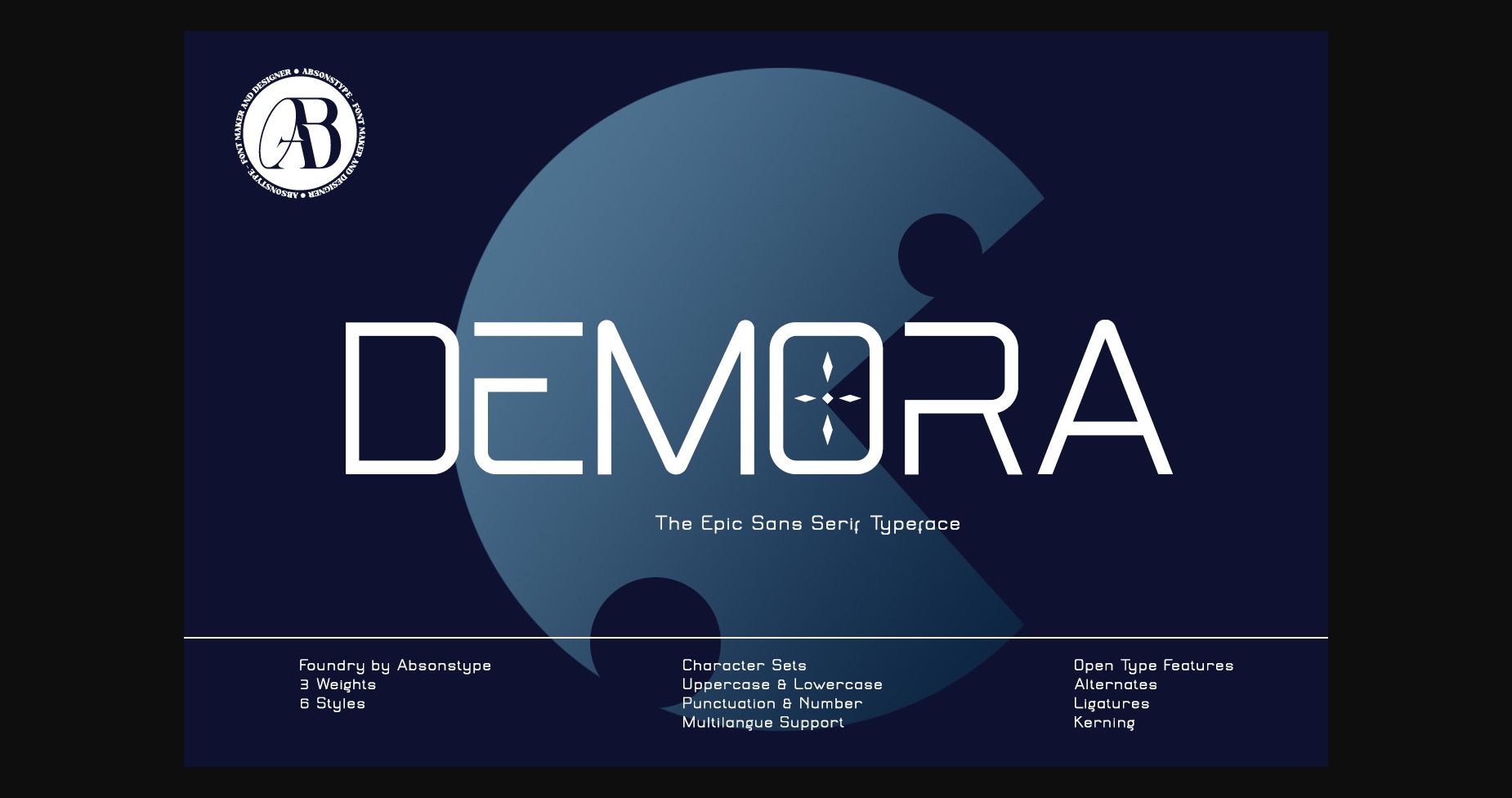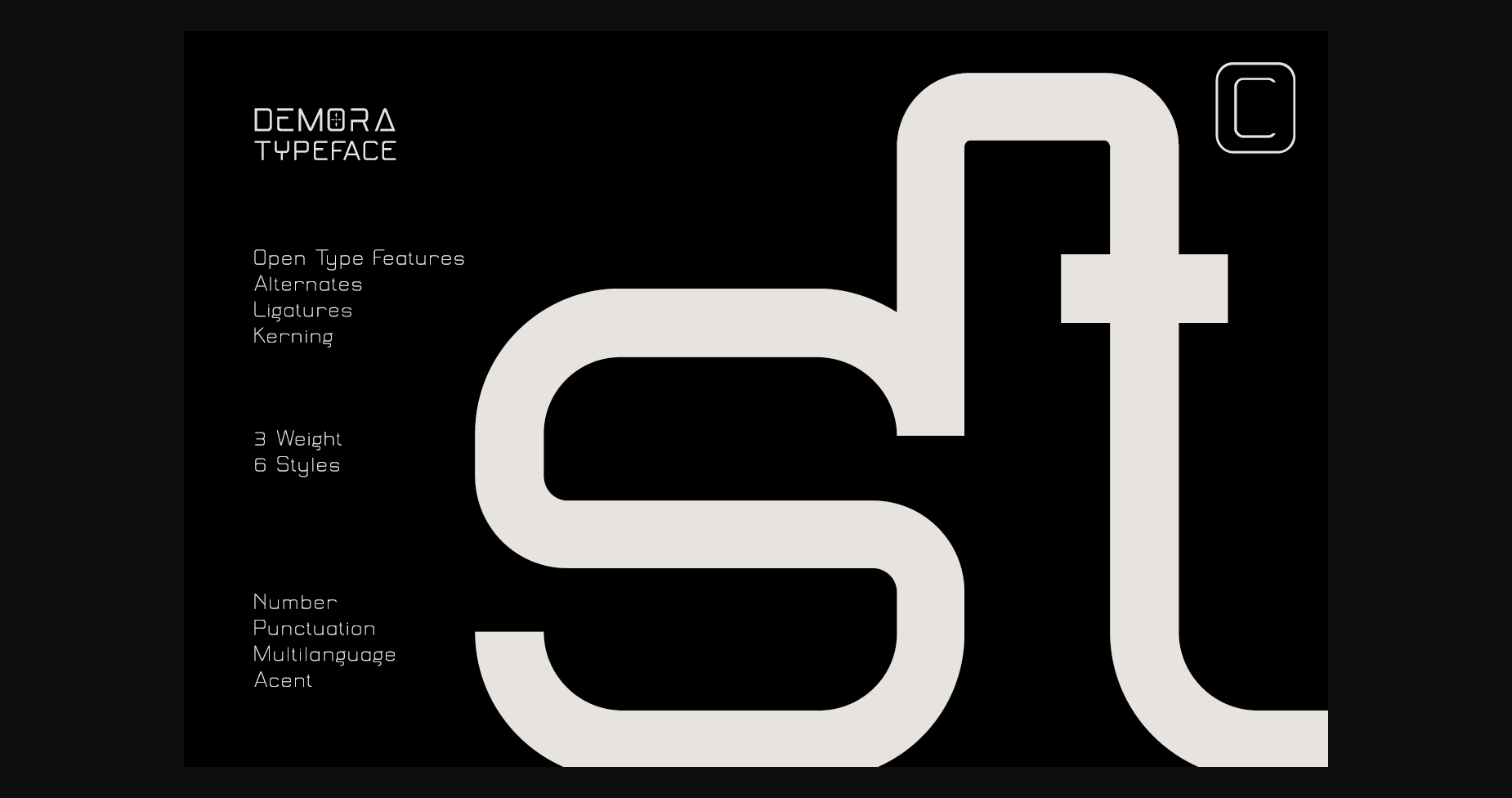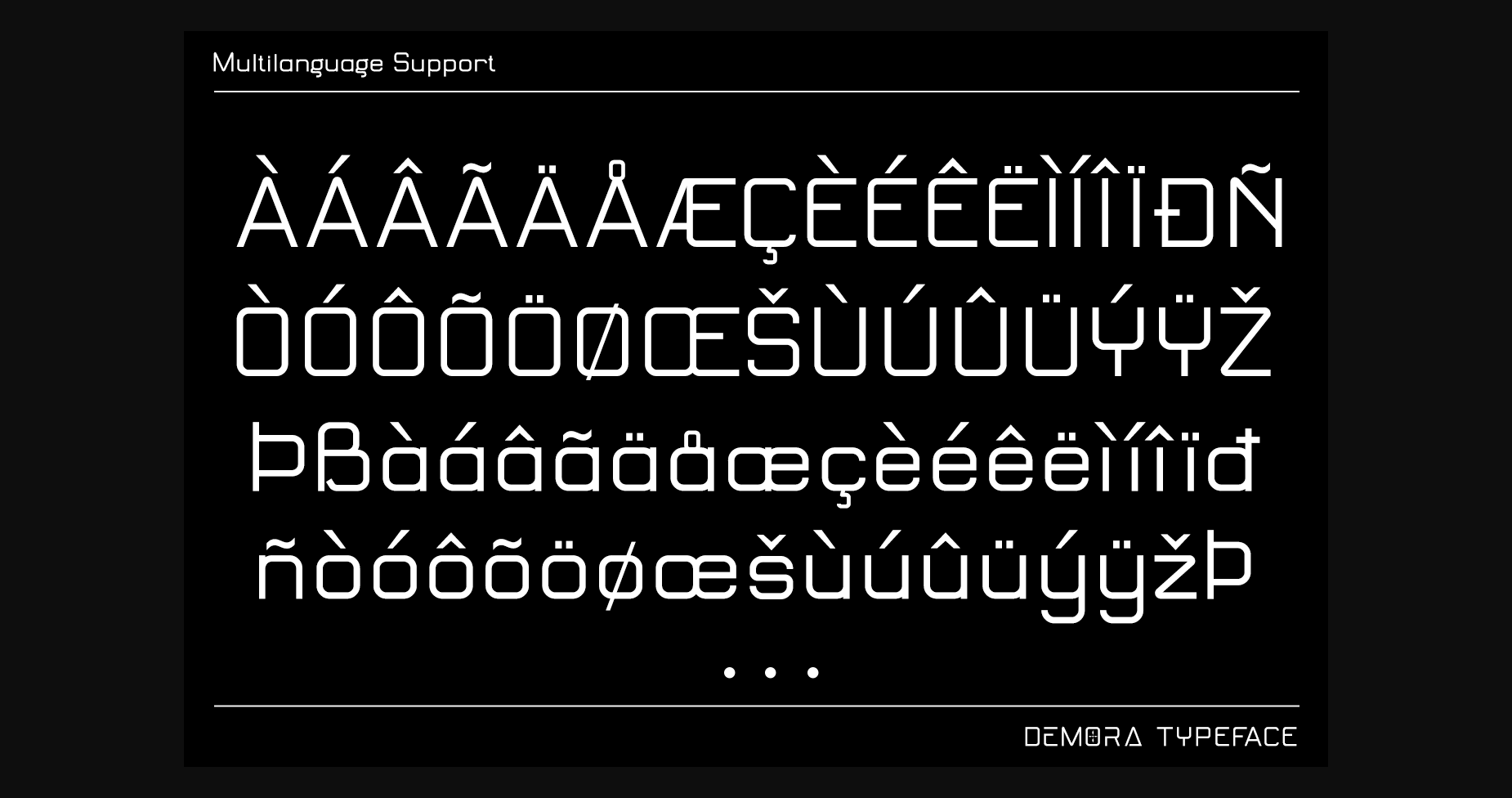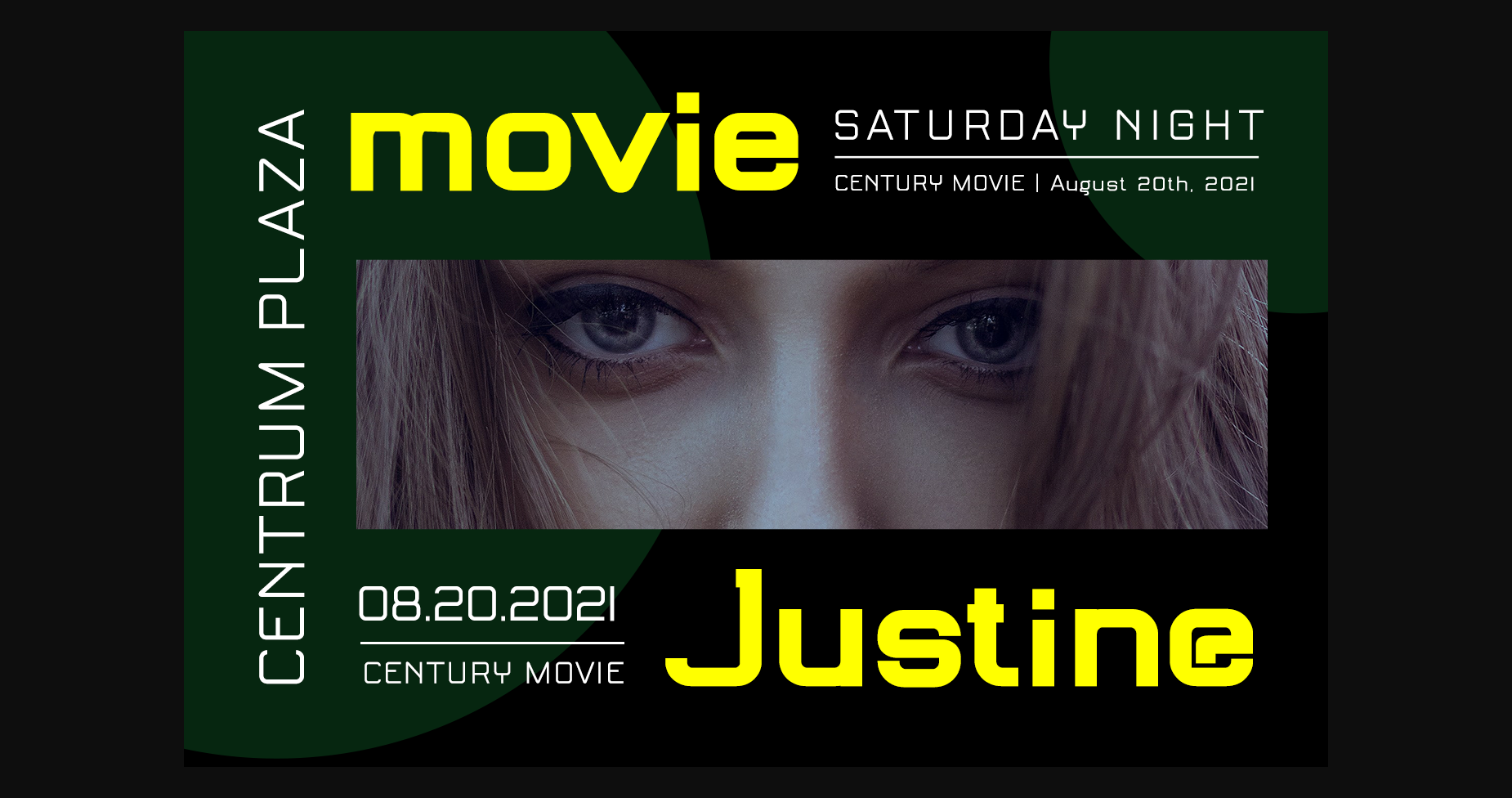
About Demora Font
Demora is a sleek and futuristic sans serif font that exudes a sense of modernity and innovation. Its clean lines and sharp edges create a sense of precision and technology, making it perfect for use in science fiction or technology-related projects. The font is versatile and easy to read, with a timeless quality that makes it a great choice for a variety of design applications.